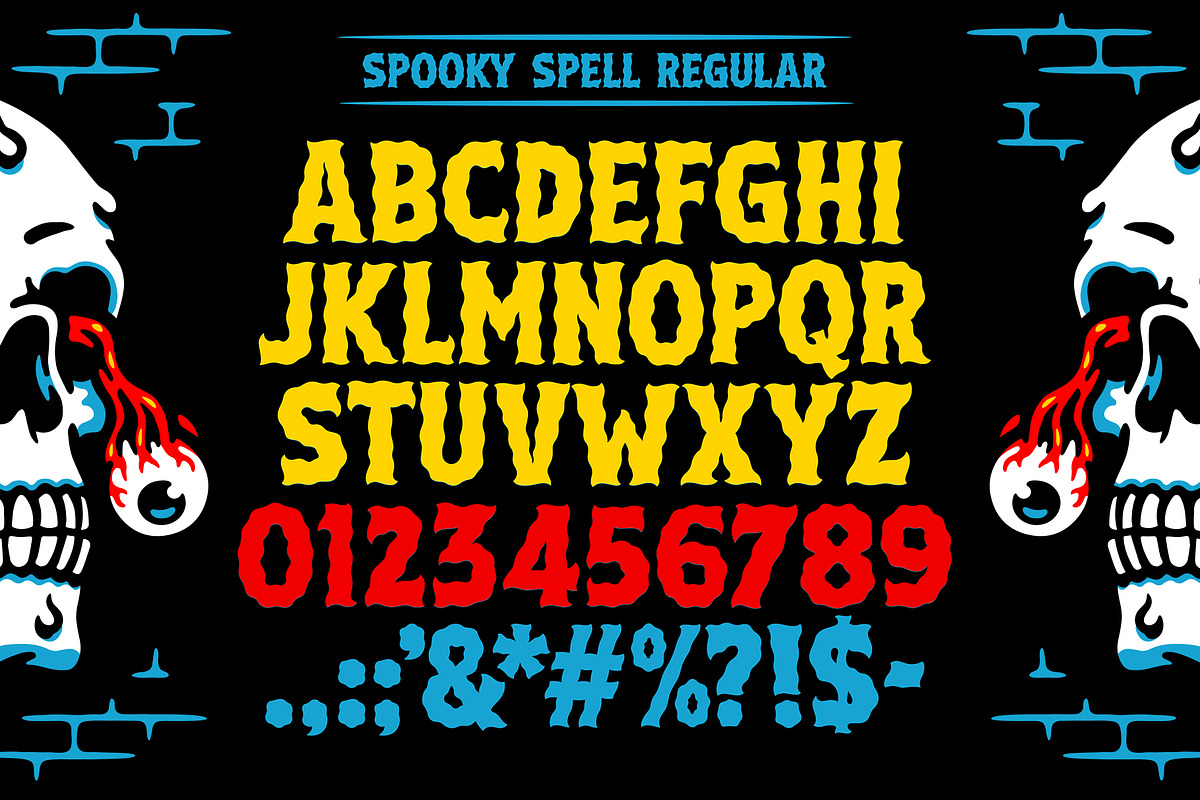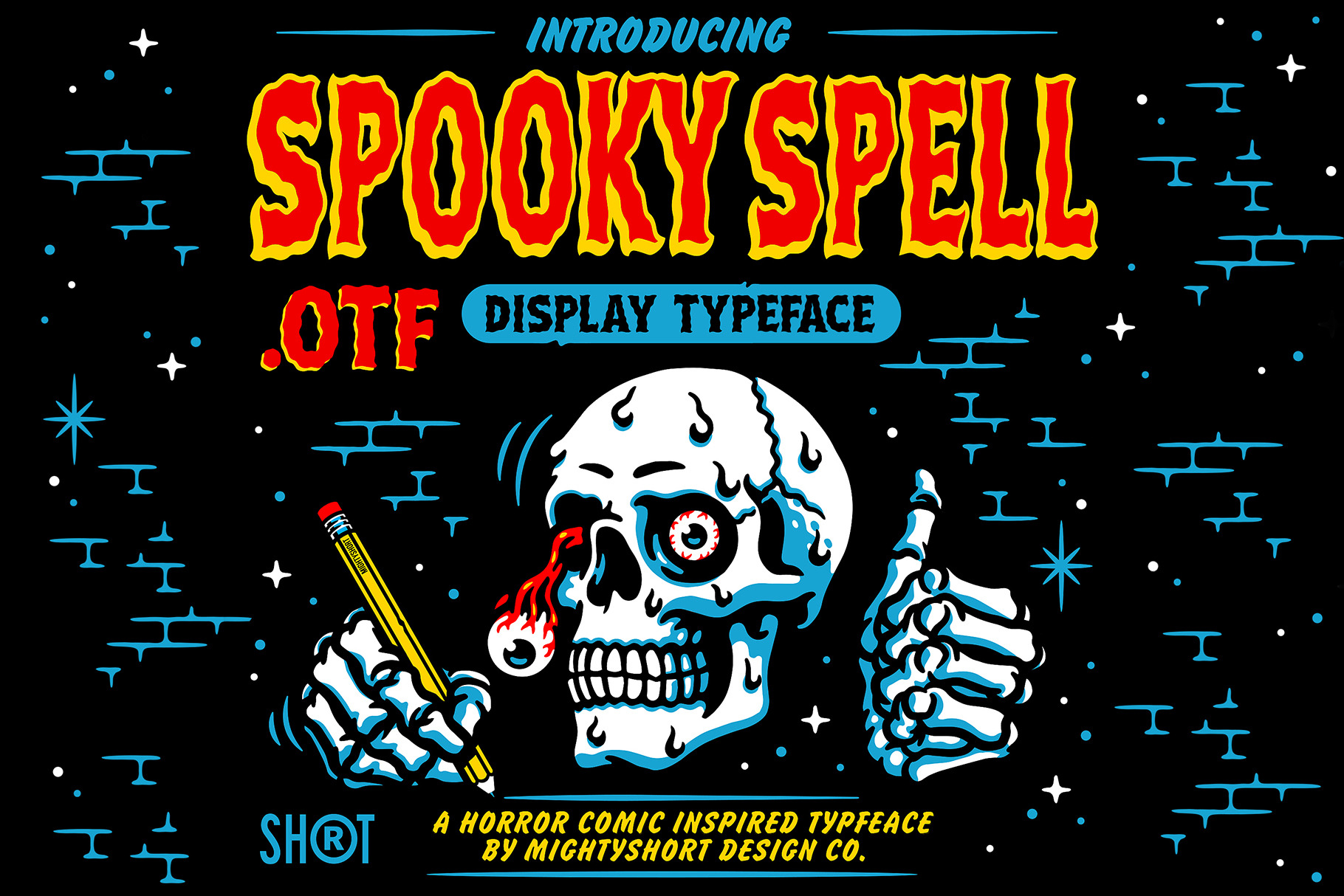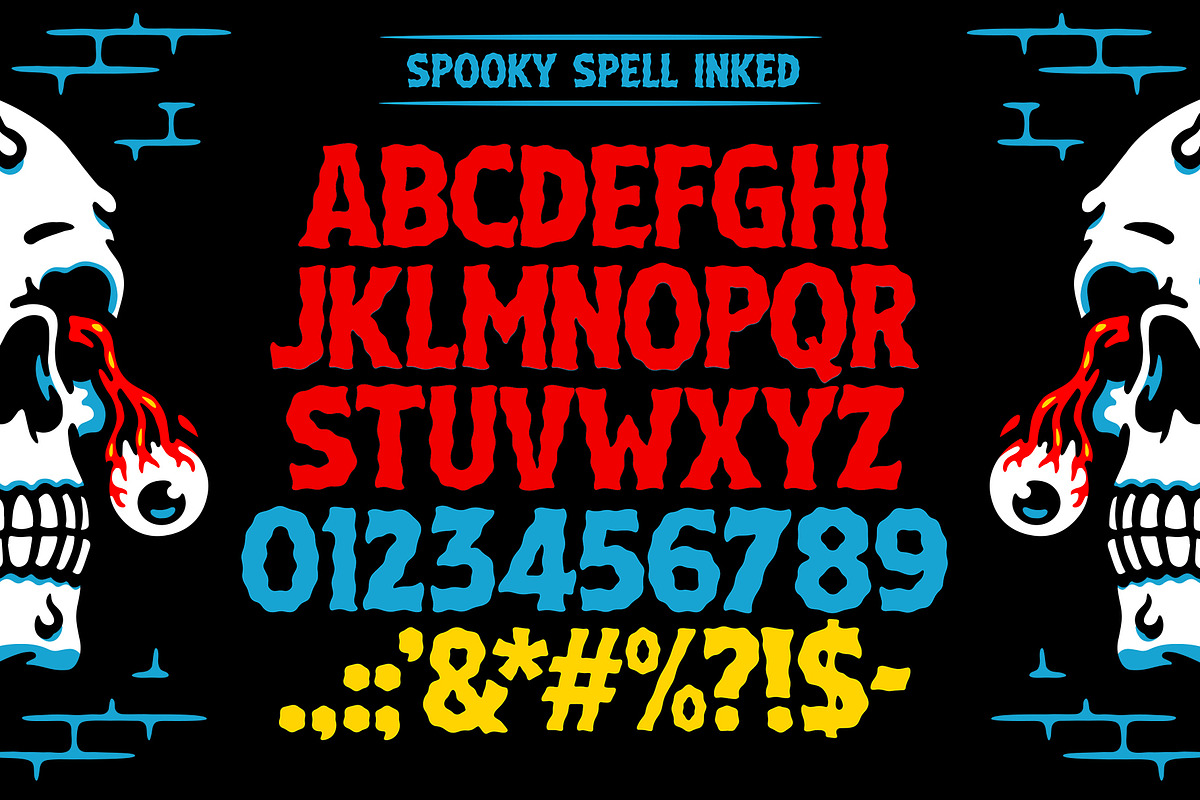
Spooky Spell Font
Spooky Spell is a typeface inspired by the retro horror comic. These handdrawn characters will add a cool creepy touch to your graphics. Suitable for poster, tee-Shirt, logos, packging and more! The typeface come with 2 fonts, “Spooky Spell Regular” the very crisp one and “Spooky Spell Indked” the smooth one! Let’s get spooky!